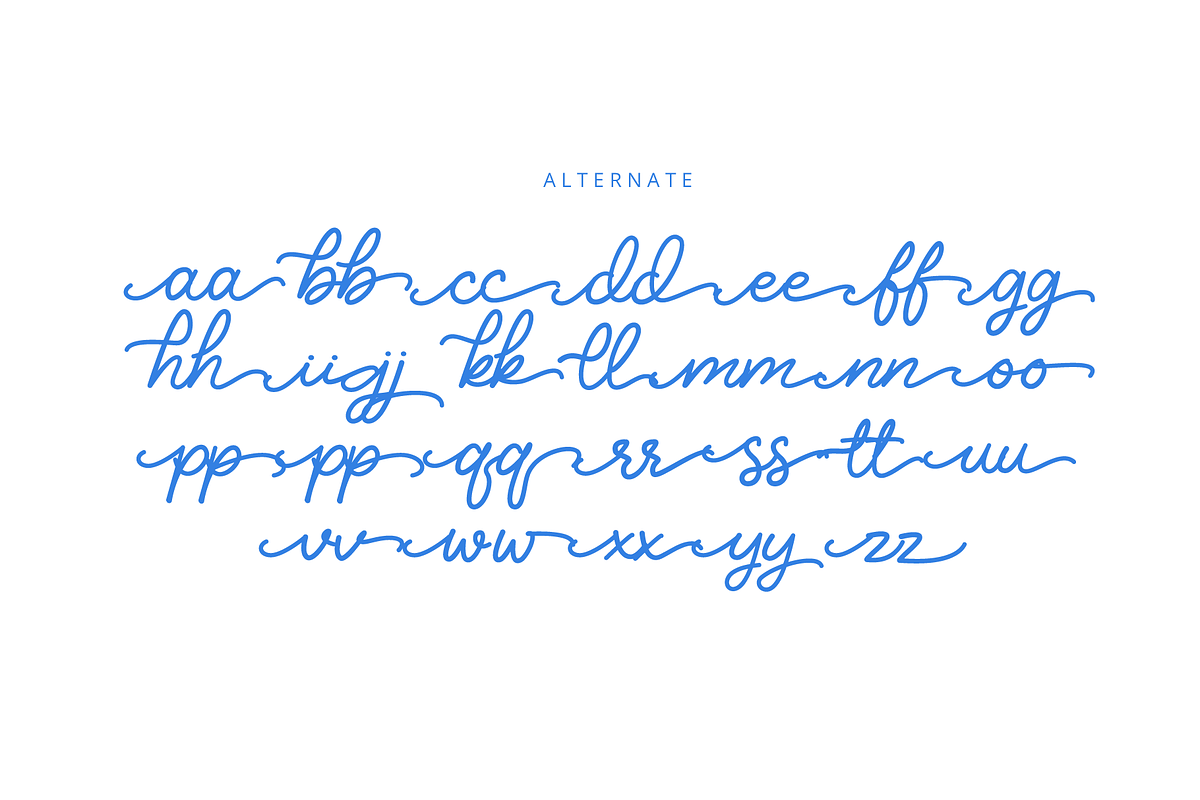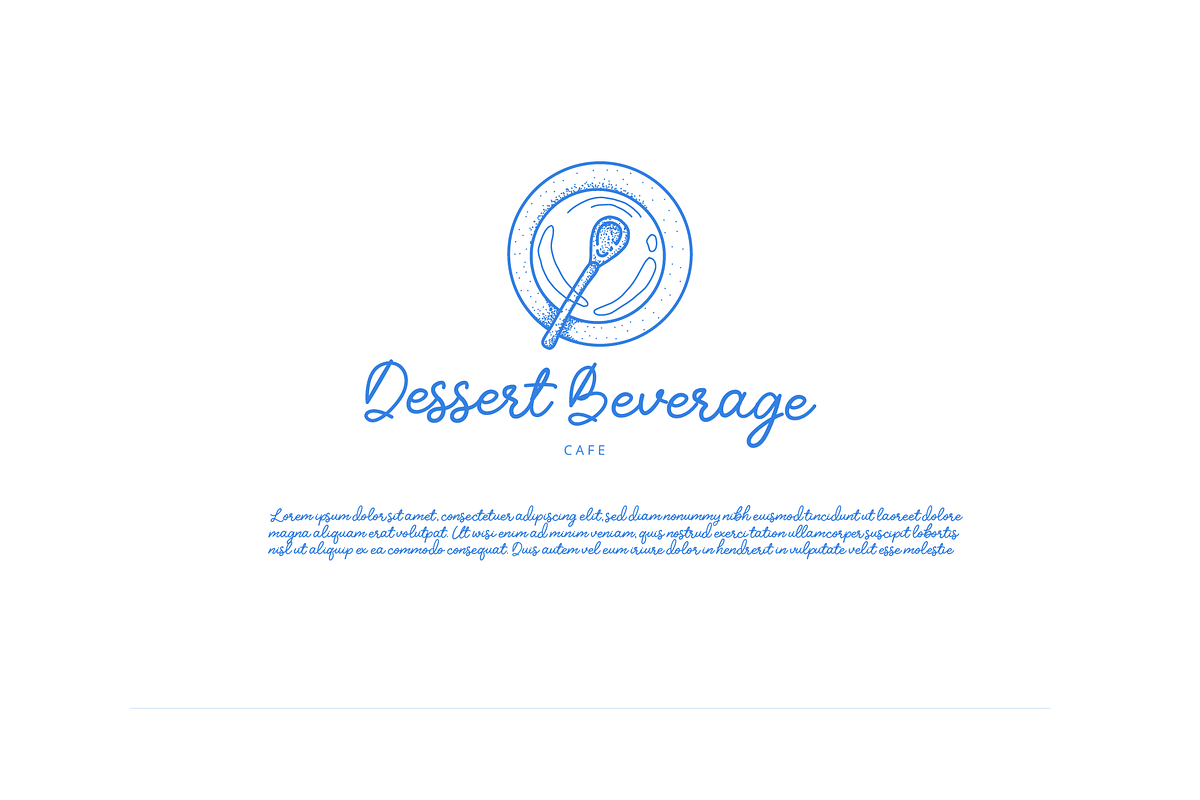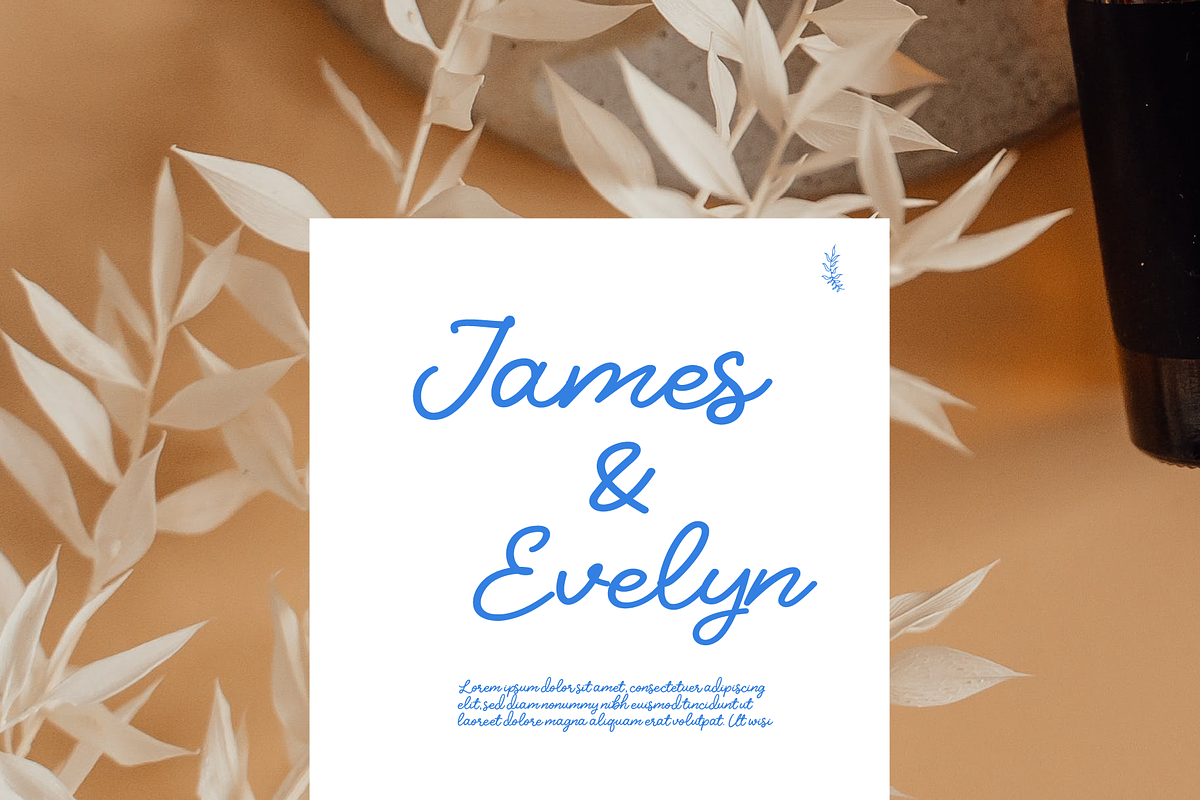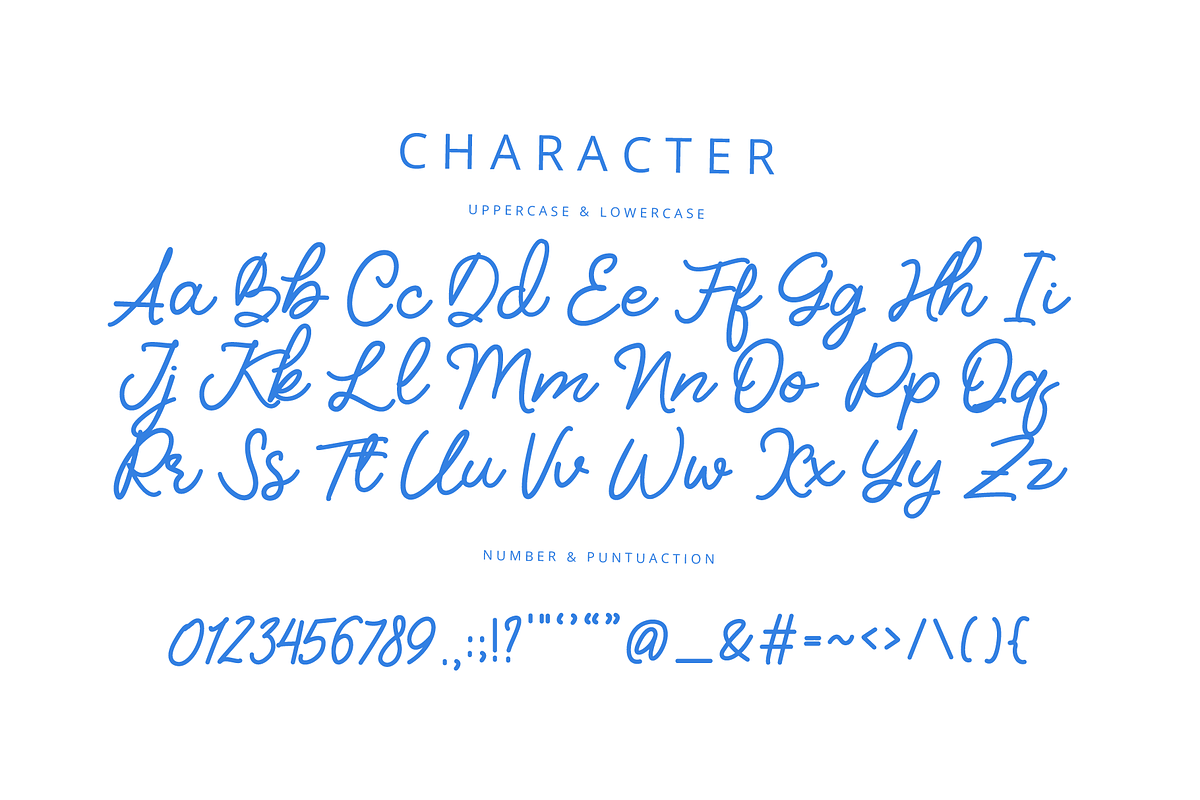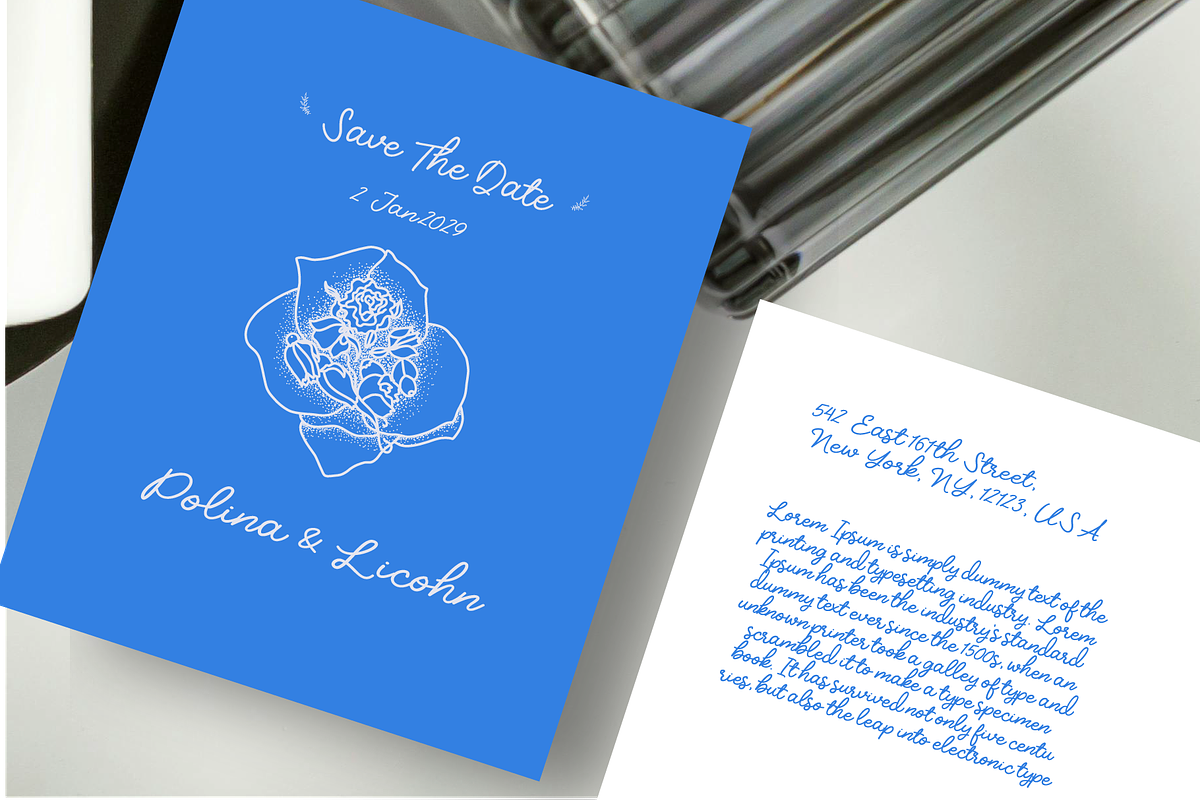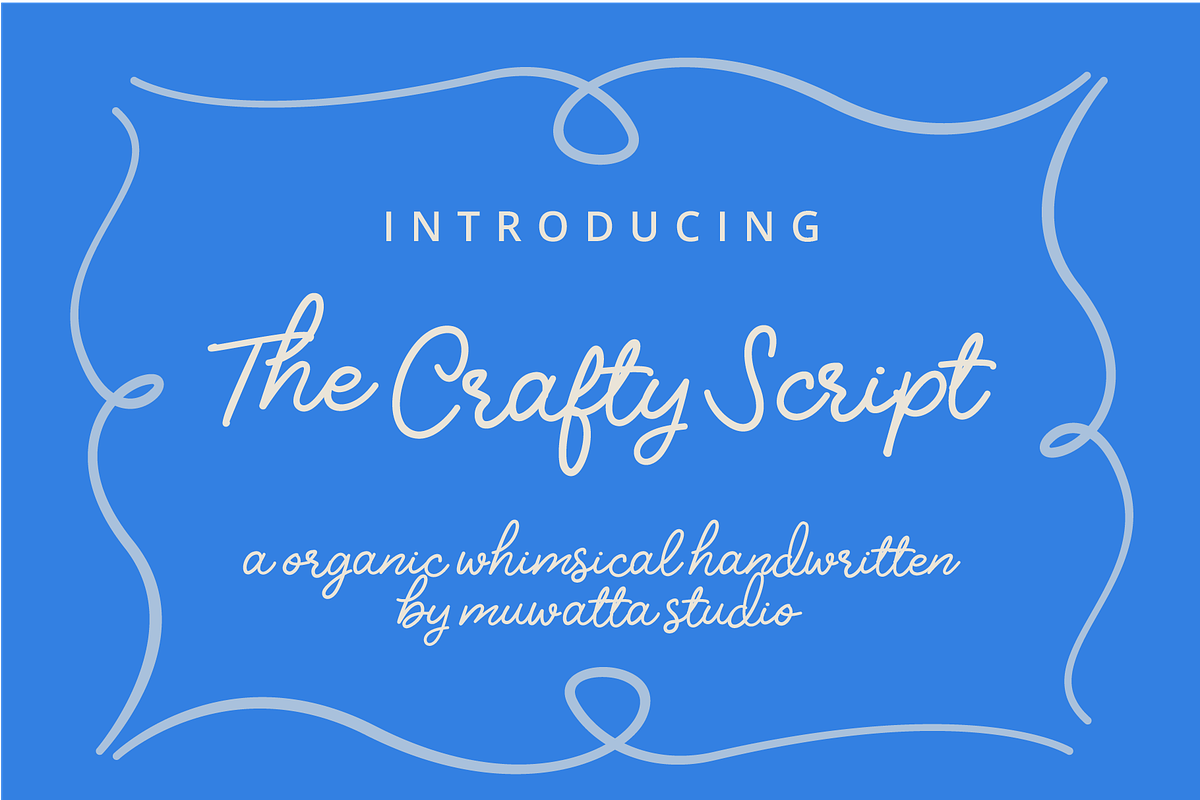
The Crafty Script
The Crafty Script Font is the perfect blend of relaxed handwriting style and a whimsical creative touch. Inspired by spontaneous sketchbook scribbles and idea-filled diaries, this font is here to bring a playful, warm, and personality-filled feel to every design.
With its fluid strokes, less formal lines, and natural rhythm, The Crafty Script is an ideal choice for those who want to create designs that feel close, friendly, and down to earth. Suitable for creative projects such as handmade logos, fun-themed invitations, product labels, planners, stickers, to social media posts that need a cheerful and adorable vibe.
-Full alphabet with Uppercase and Lowercase A-Z for script
-Numbers for all fonts
-Punctuation and symbols for all fonts
-Alternates Lowercase script
-Multilingual support all fonts